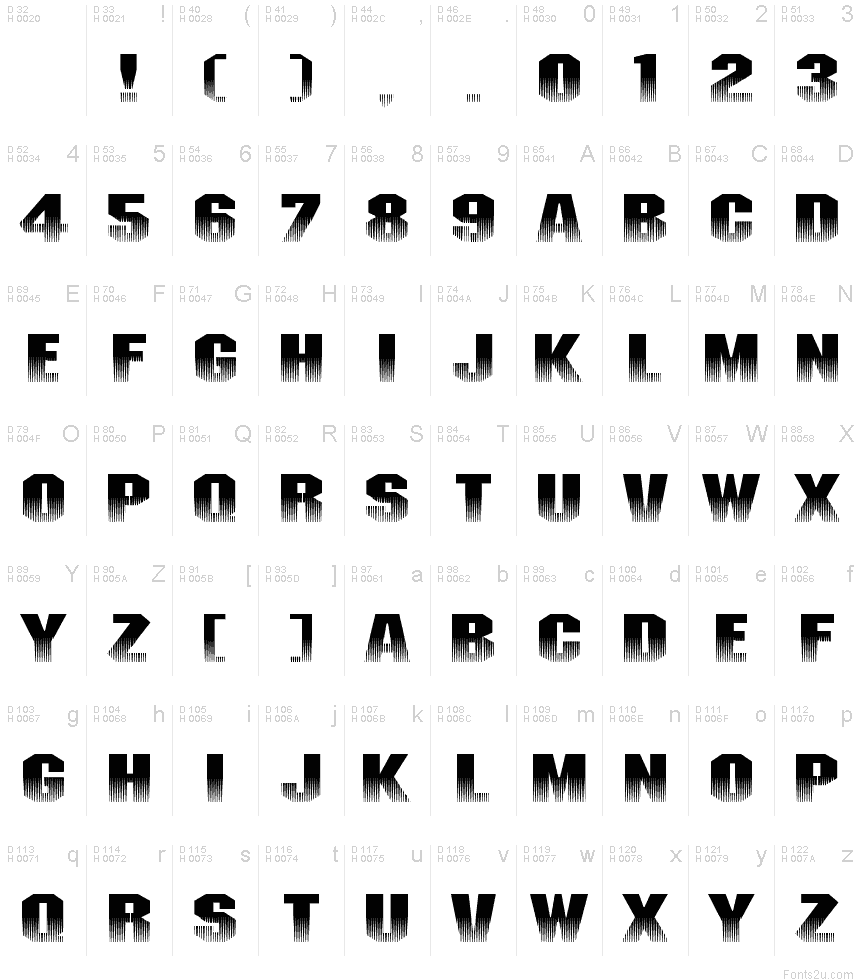
InvisibleKiller
Invisible Killer font by Paul Reid is a free eroded display typeface that looks like it’s been slashed downward with a set of razor-sharp teeth. Heavy black letterforms dissolve into thin vertical spikes, creating a sense of motion, decay, and danger all at once. The texture feels jagged and abrasive, like torn posters on a grimy alley wall-perfect when you need type that doesn’t just whisper “thriller,” but screams it.
Using Invisible Killer, titles instantly feel cinematic and unsettling, making it a natural fit for horror movie posters, slasher or survival game logos, haunted house branding, Halloween flyers, or metal album artwork. The tall, tapering strokes love big sizes where the erosion can really breathe. Pair this free font with a clean, minimal sans-serif for body copy to keep your layouts readable while the headlines do the haunting.
Paul Reid, October '97.